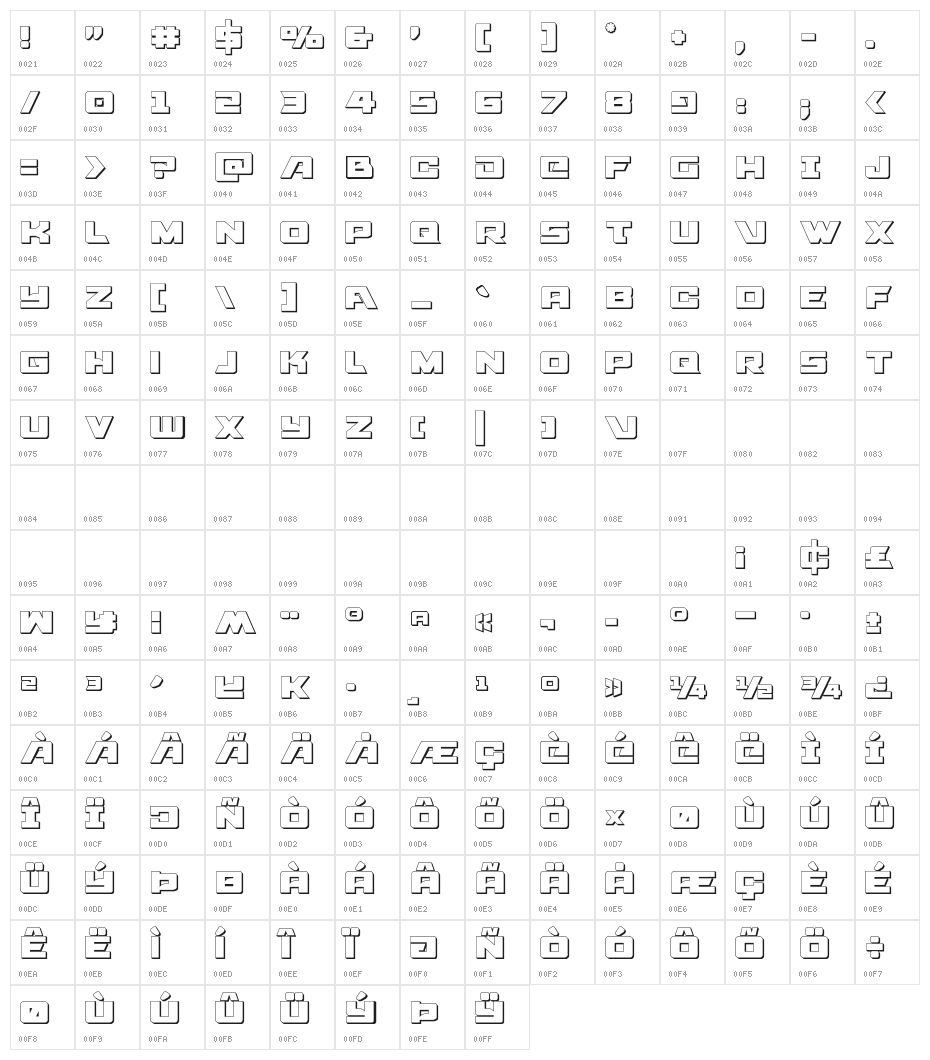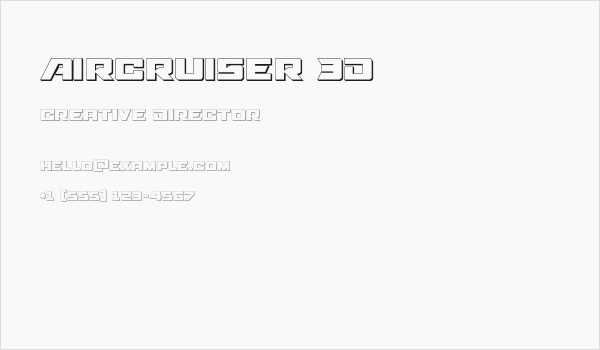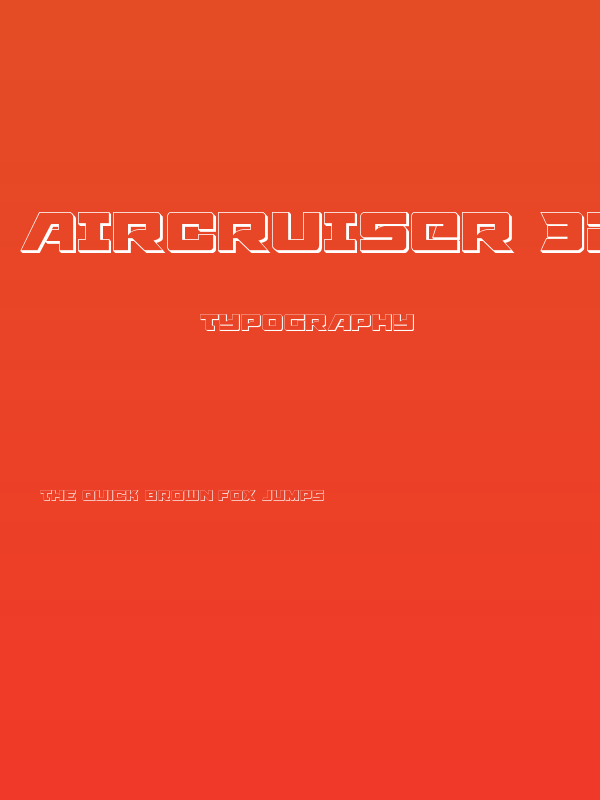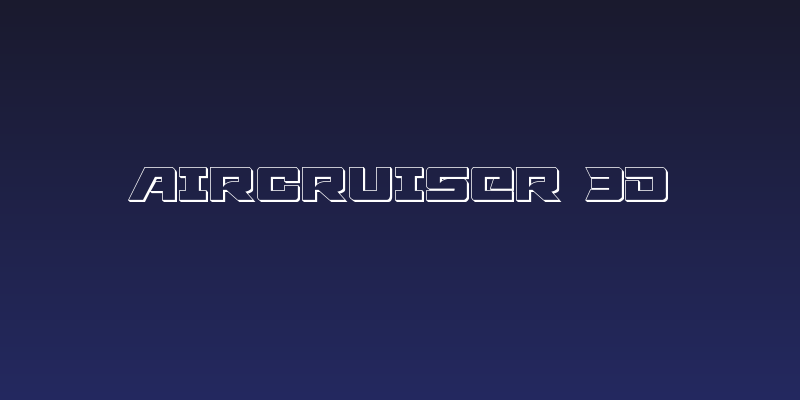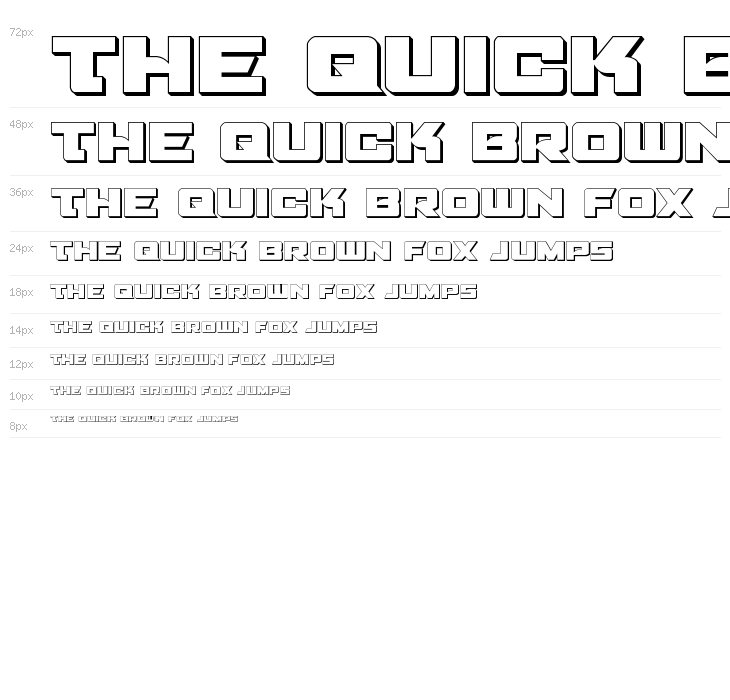
Aircruiser 3D Font
Aircruiser 3D Description
This font features a bold, three-dimensional design that gives each character a distinct, futuristic appearance. The letters are outlined with a shadow effect, creating a sense of depth and movement. The geometric shapes and sharp angles contribute to its modern and dynamic style. The uppercase letters are consistent in height, while the numbers and special characters maintain the same bold and structured look. This font is ideal for projects that require a strong visual impact and a contemporary aesthetic.
| Proposed Projects | Ideal for video game titles, sci-fi movie posters, technology branding, and futuristic event invitations. |